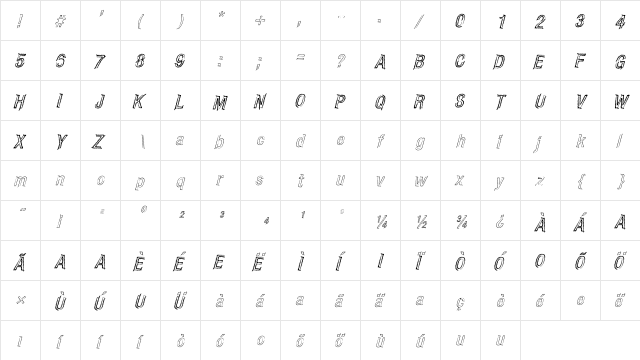
CARBONCILLO PALO Italic
Design Context for CARBONCILLO PALO Typeface
CARBONCILLO PALO is a composed and adaptable typeface that performs quietly and consistently across a wide range of design contexts. The dynamic lean of this cut emphasises speed and emphasis in any layout.
Pro Tip: Try CARBONCILLO PALO for annotation and caption copy alongside an upright companion — the contrast in angle creates a dynamic but ordered typographic system.